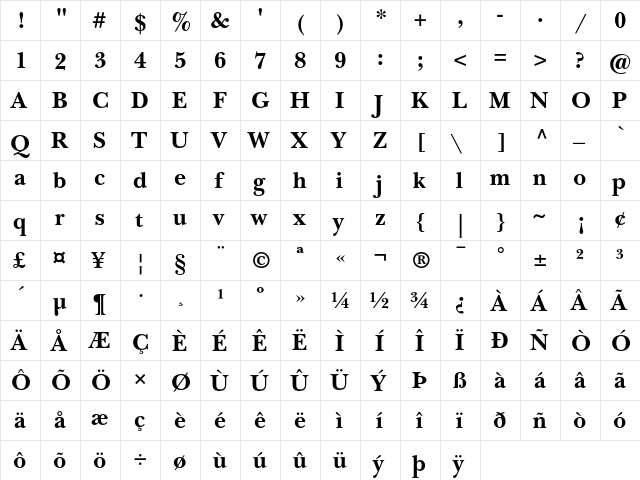
ITC New Baskerville Bold
Design Context for ITC New Baskerville Typeface
ITC New Baskerville is a composed and adaptable typeface that performs quietly and consistently across a wide range of design contexts. The heavy weight commands attention and anchors typographic hierarchies.
Pro Tip: Use ITC New Baskerville in both headline and body roles to test its range before committing to a single application.